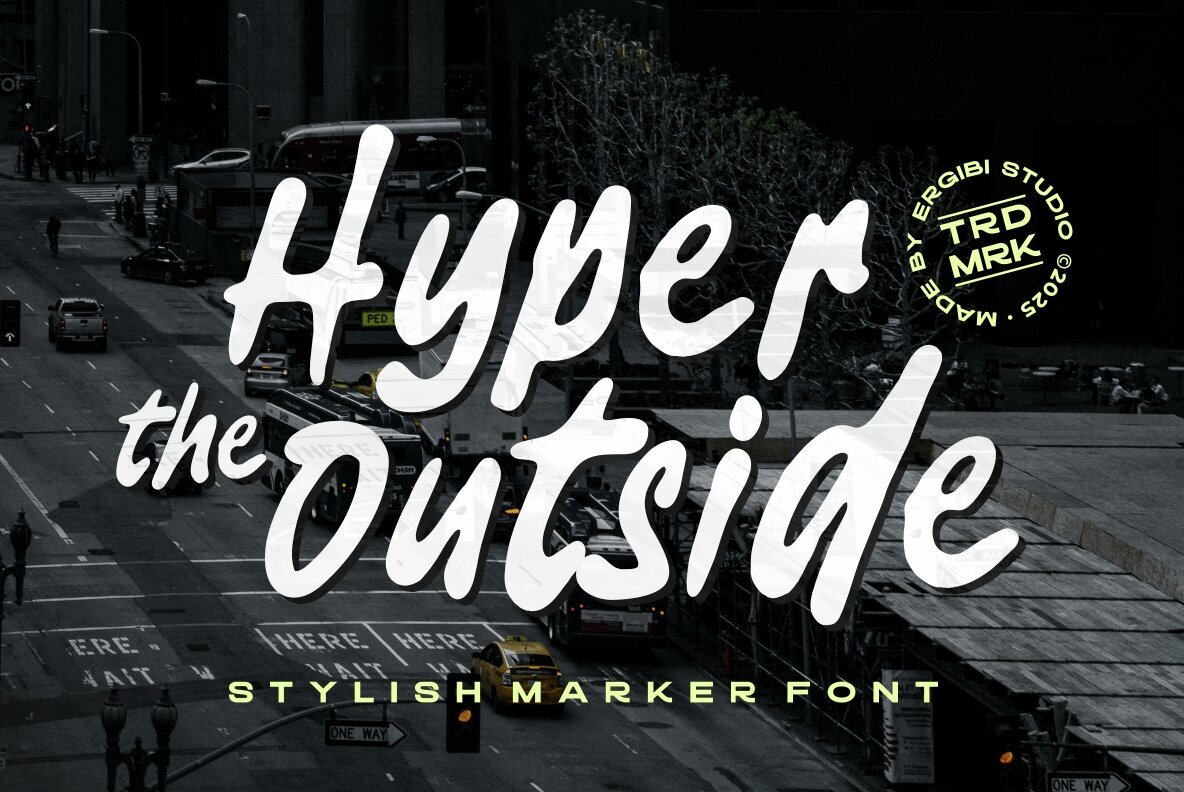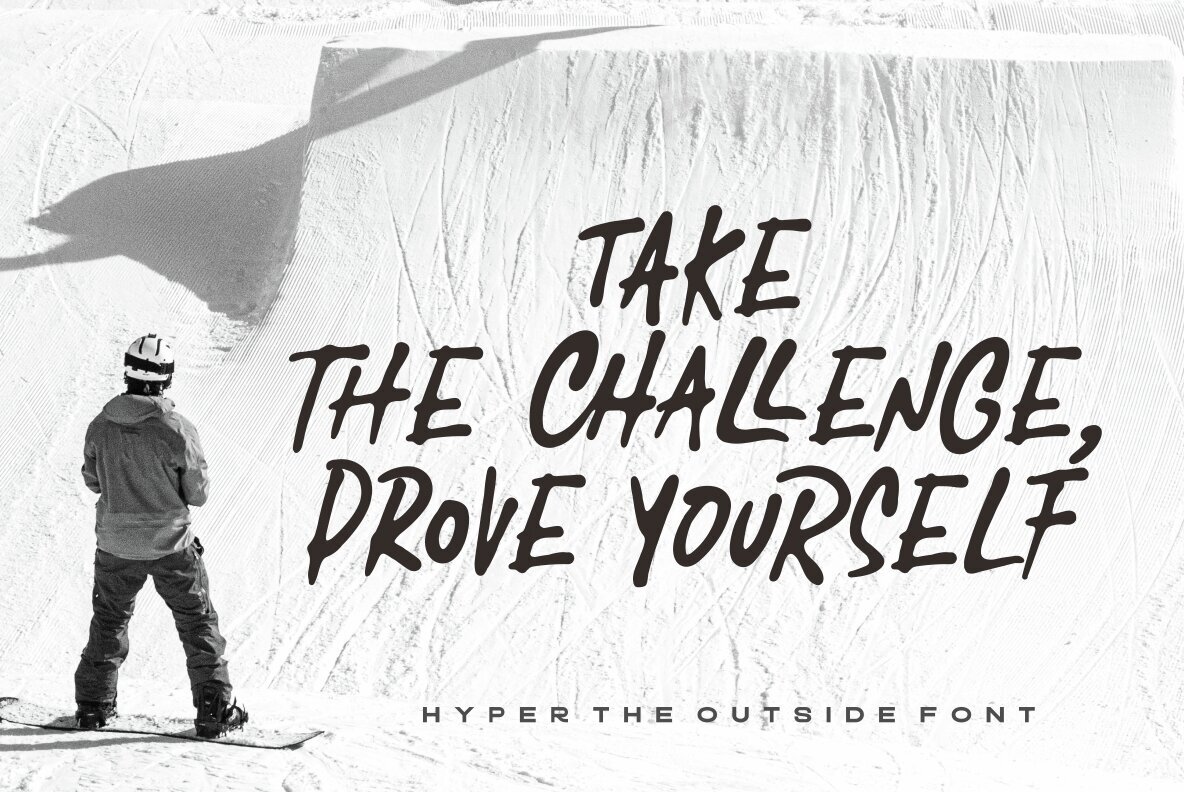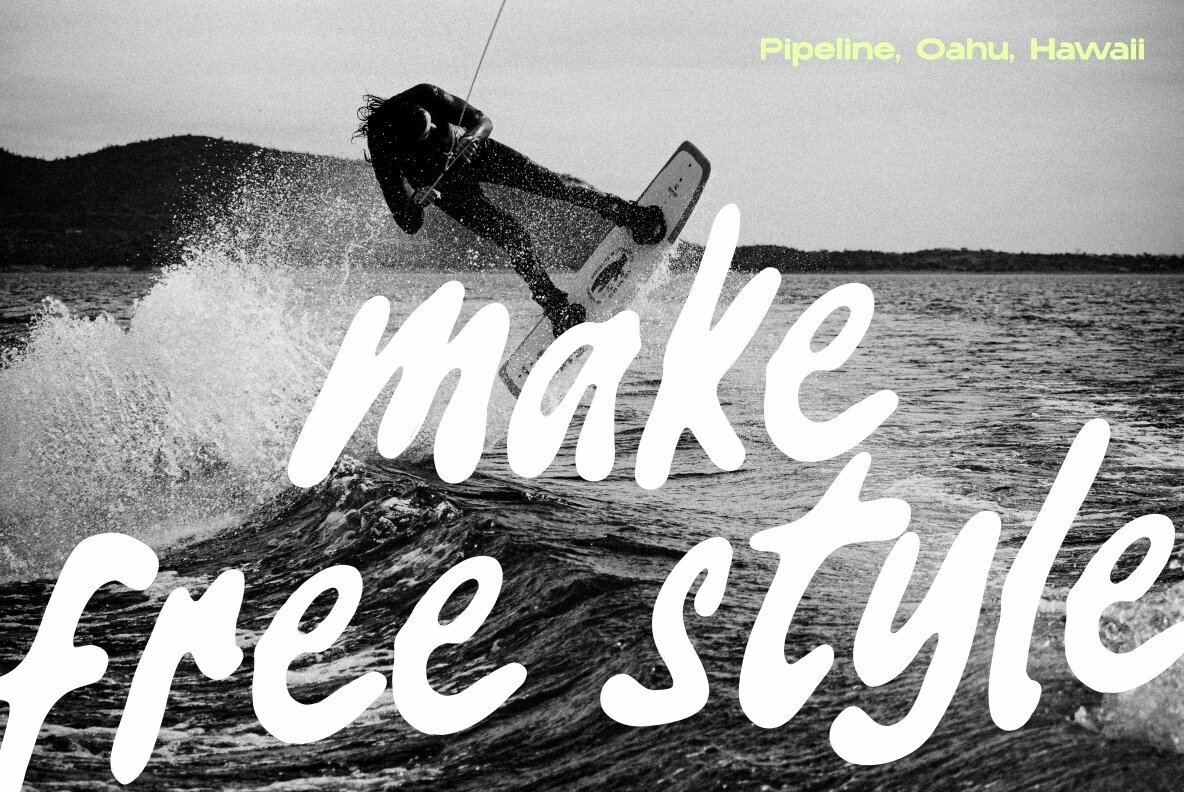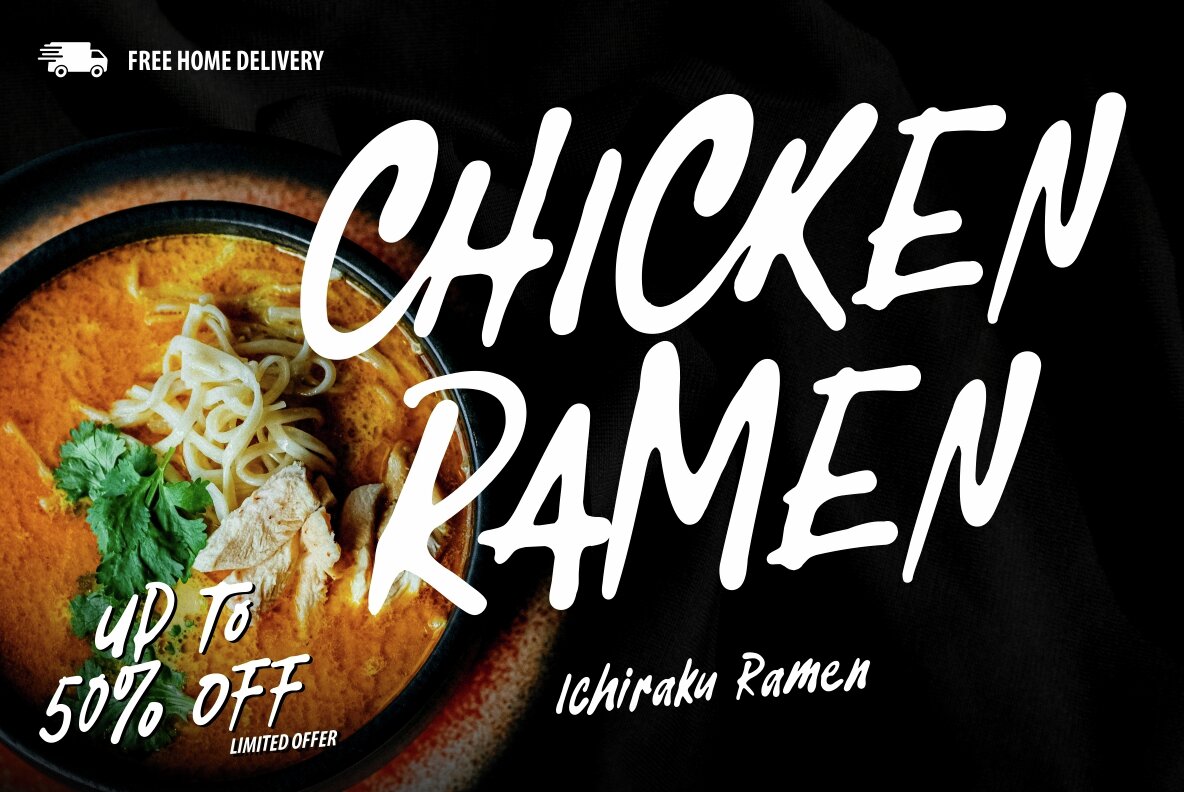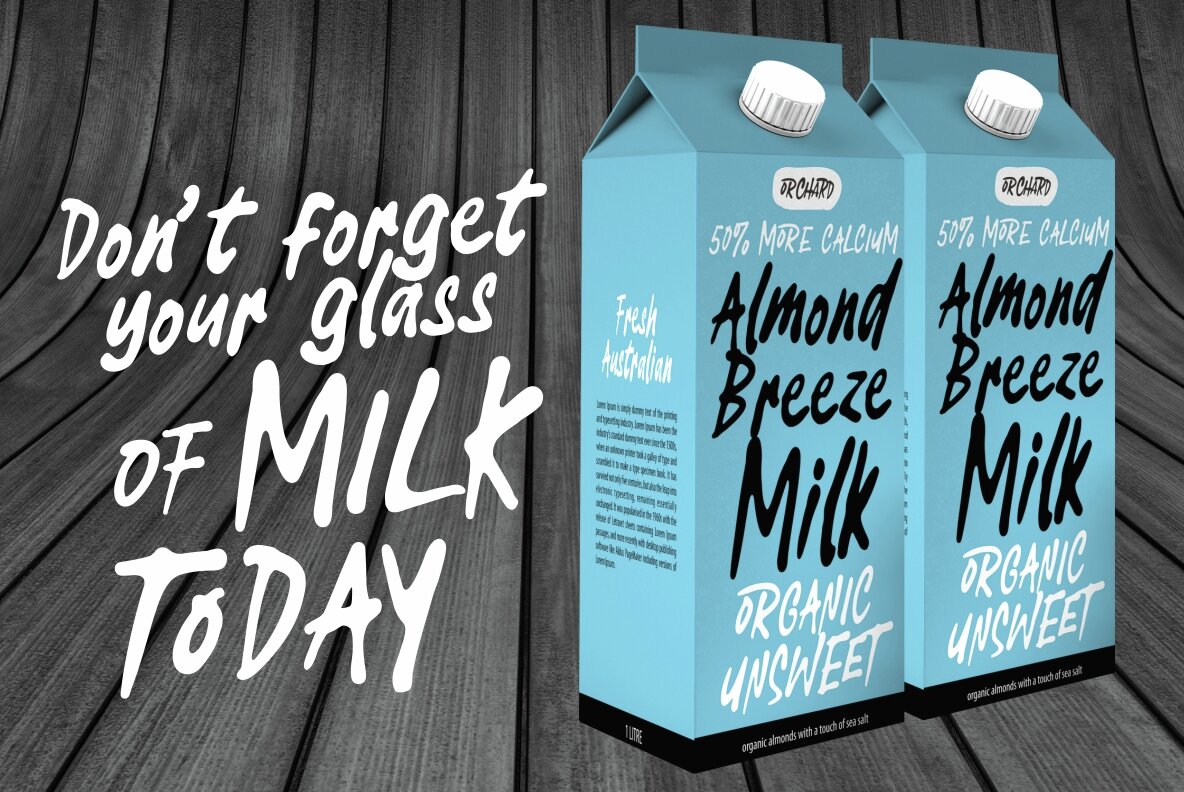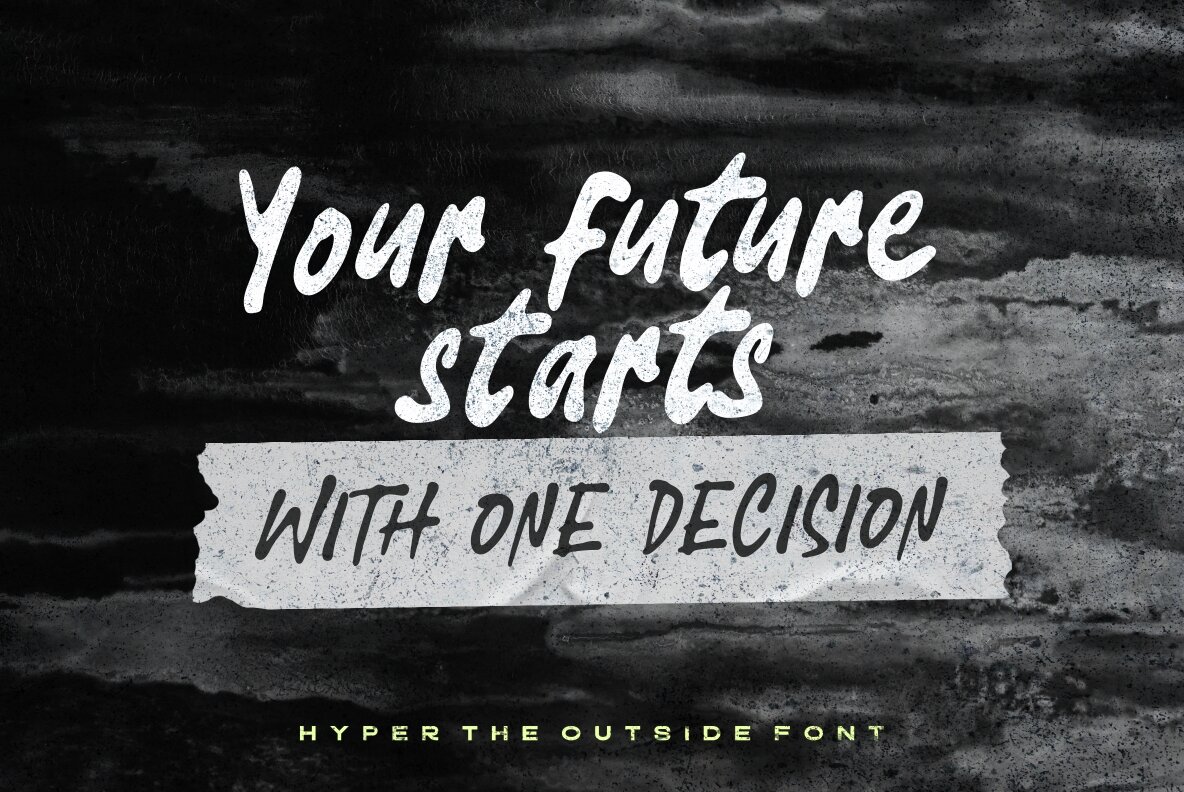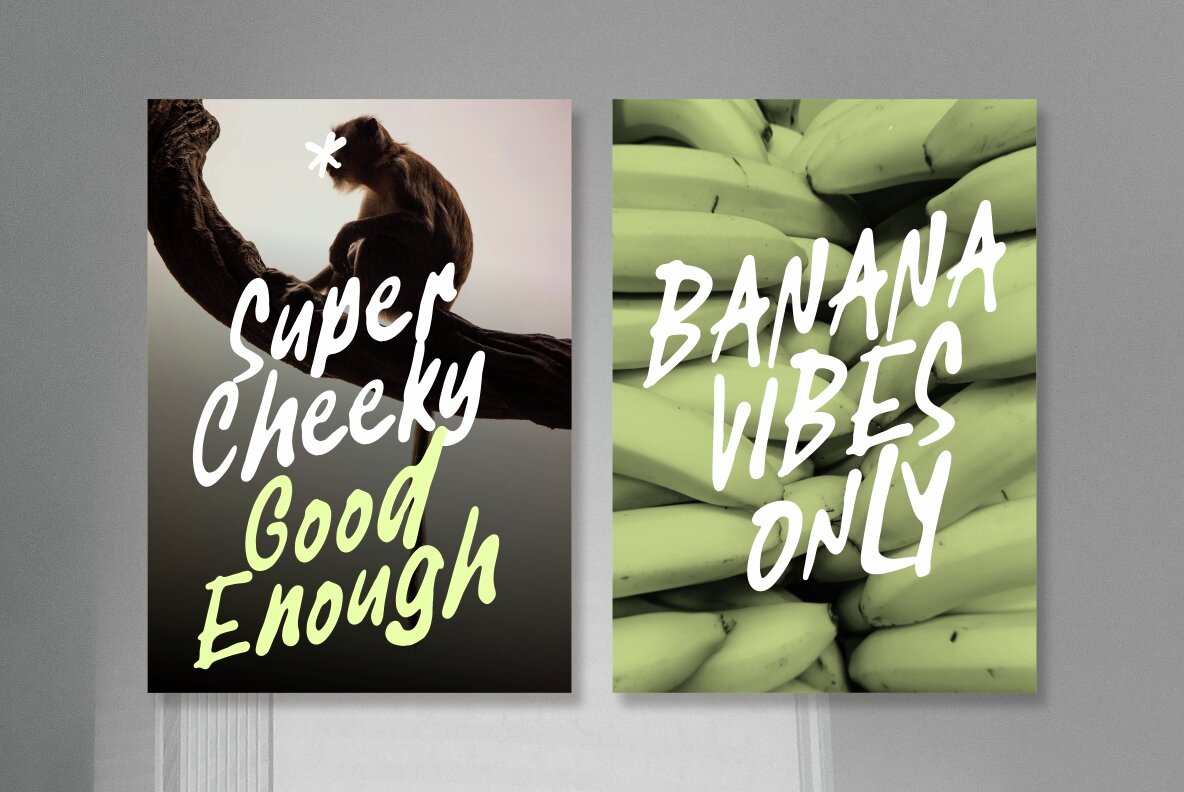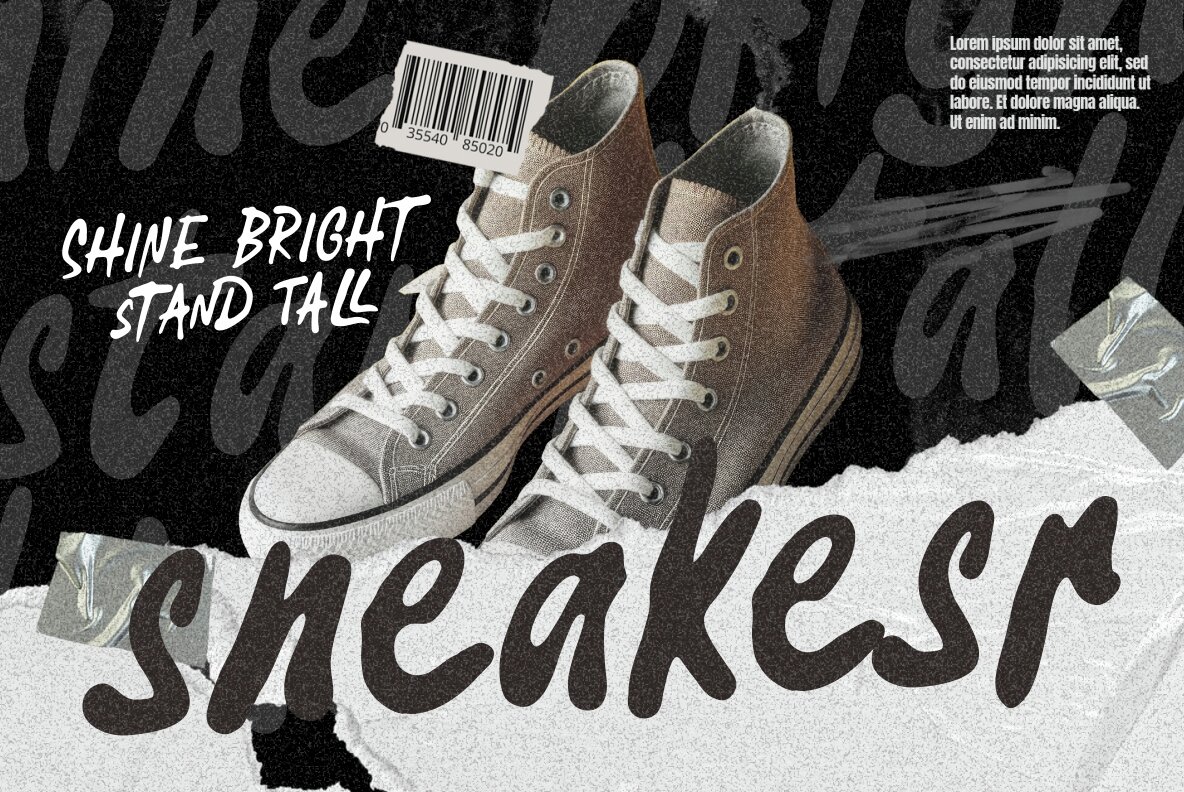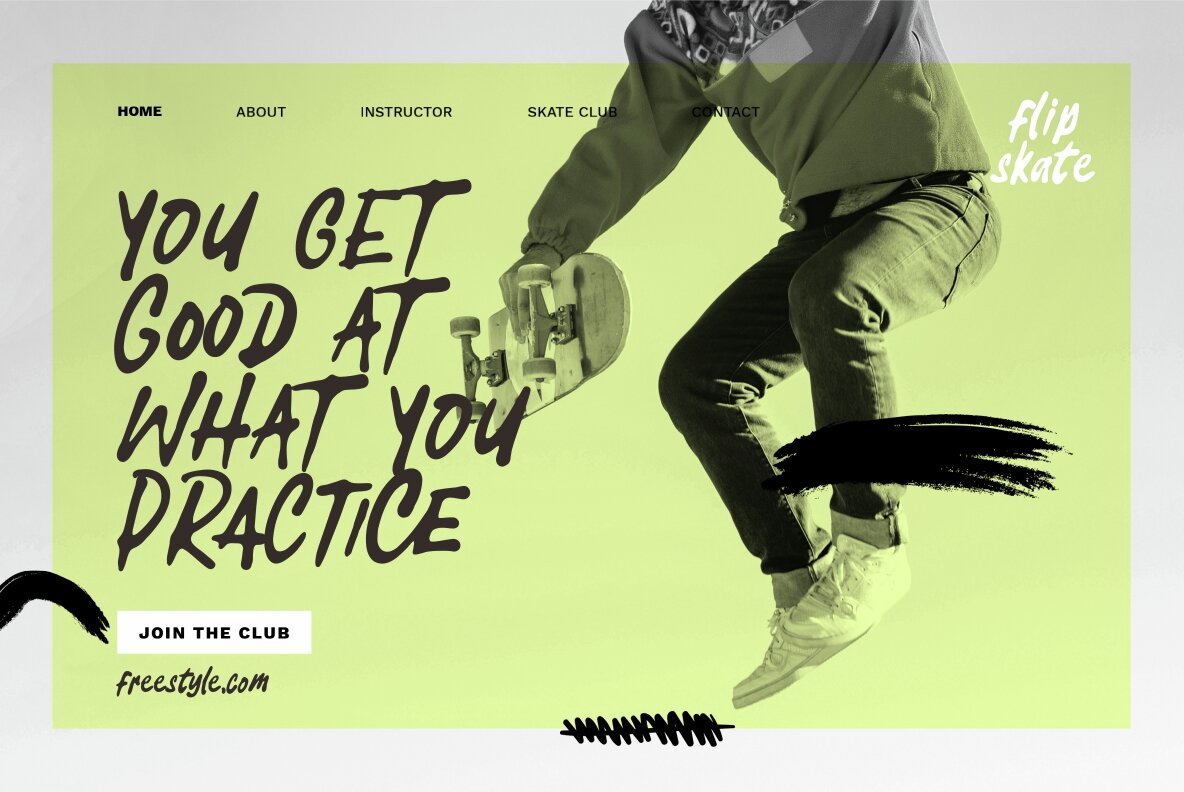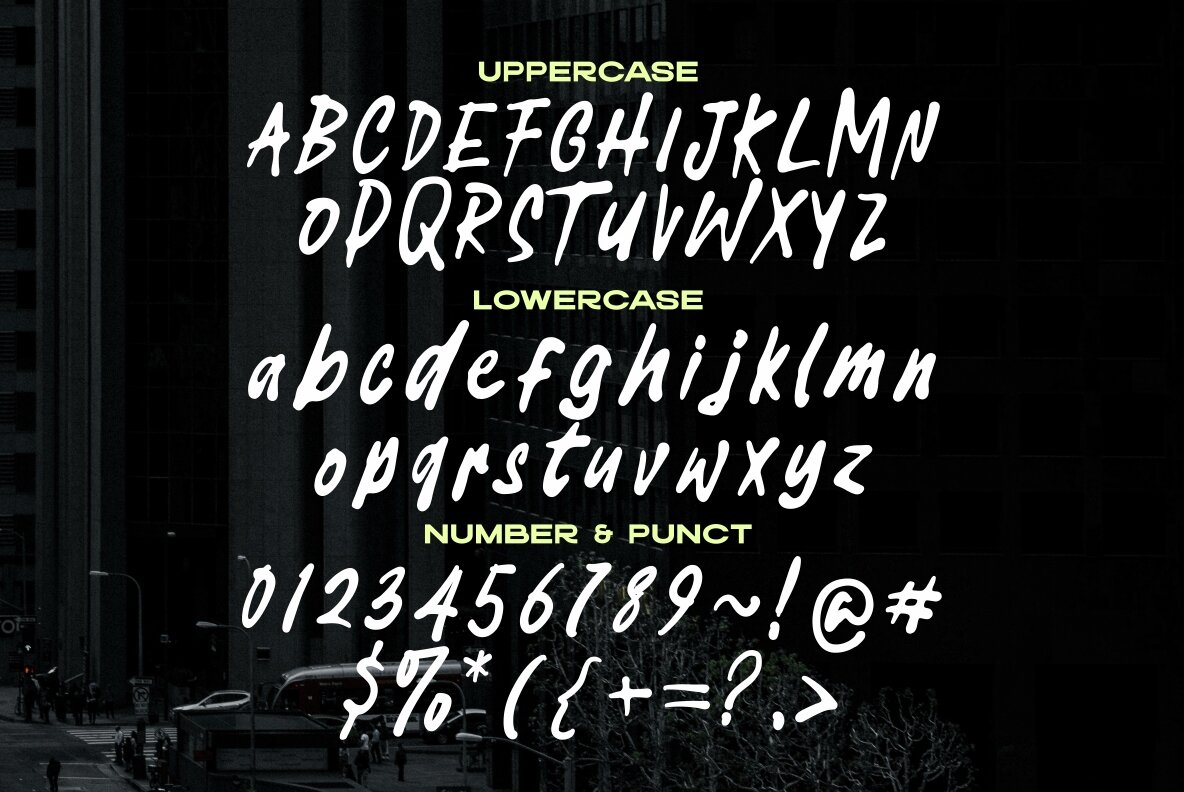
Hyper Outside Font
Hyper Outside
Hyper Outside captures the fearless spirit of city life with bold, assertive letterforms designed entirely in uppercase. Each character features strong, energetic strokes and a raw edge, making this typeface ideal for projects that require a standout urban look. Its dynamic design suggests movement, drawing the viewer’s attention and commanding a powerful visual presence. Use Hyper Outside to infuse your work with energy and attitude where only the most impactful typeface will do.Hyper Outside Display Font: Urban Energy in Every Stroke